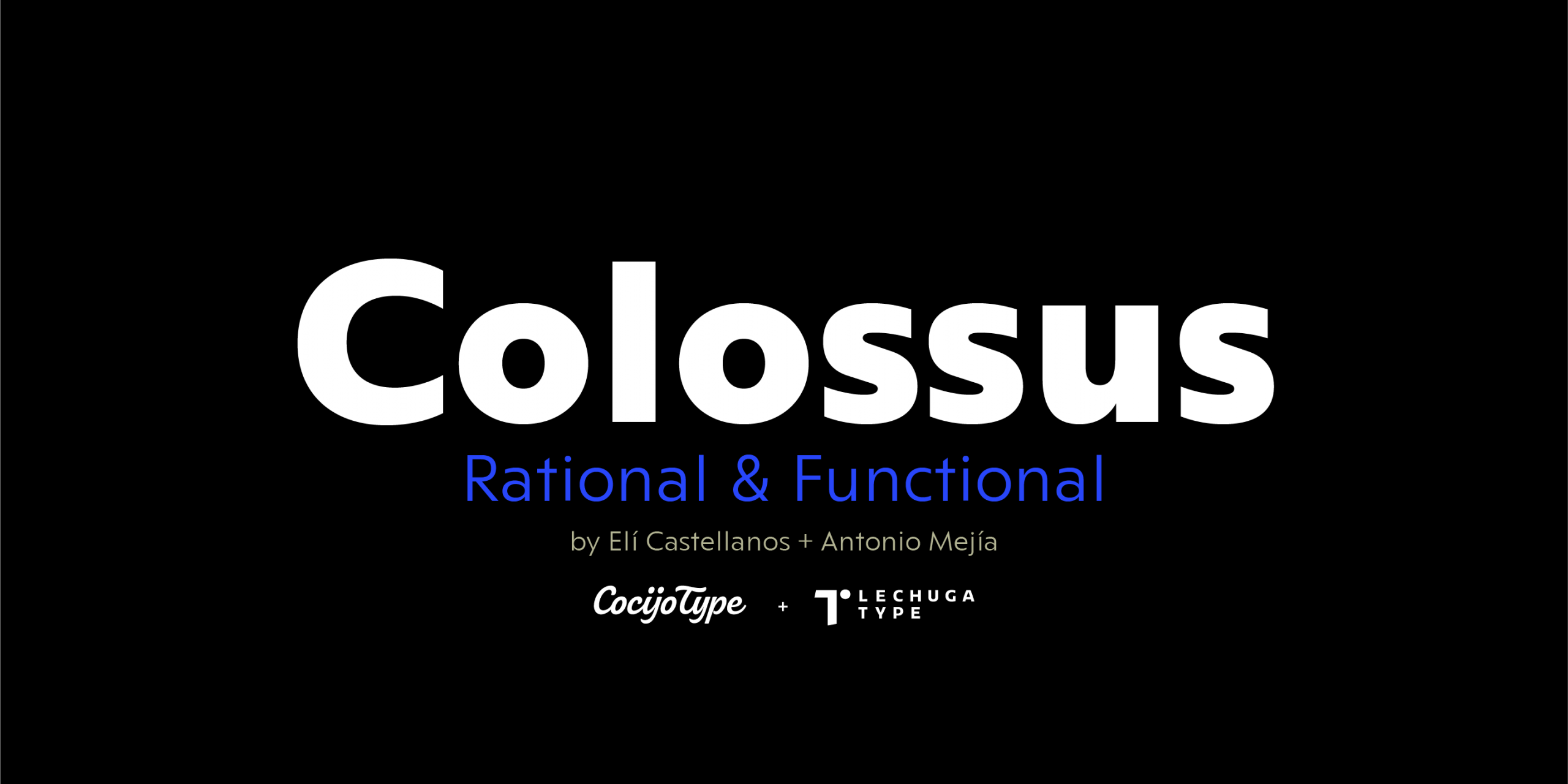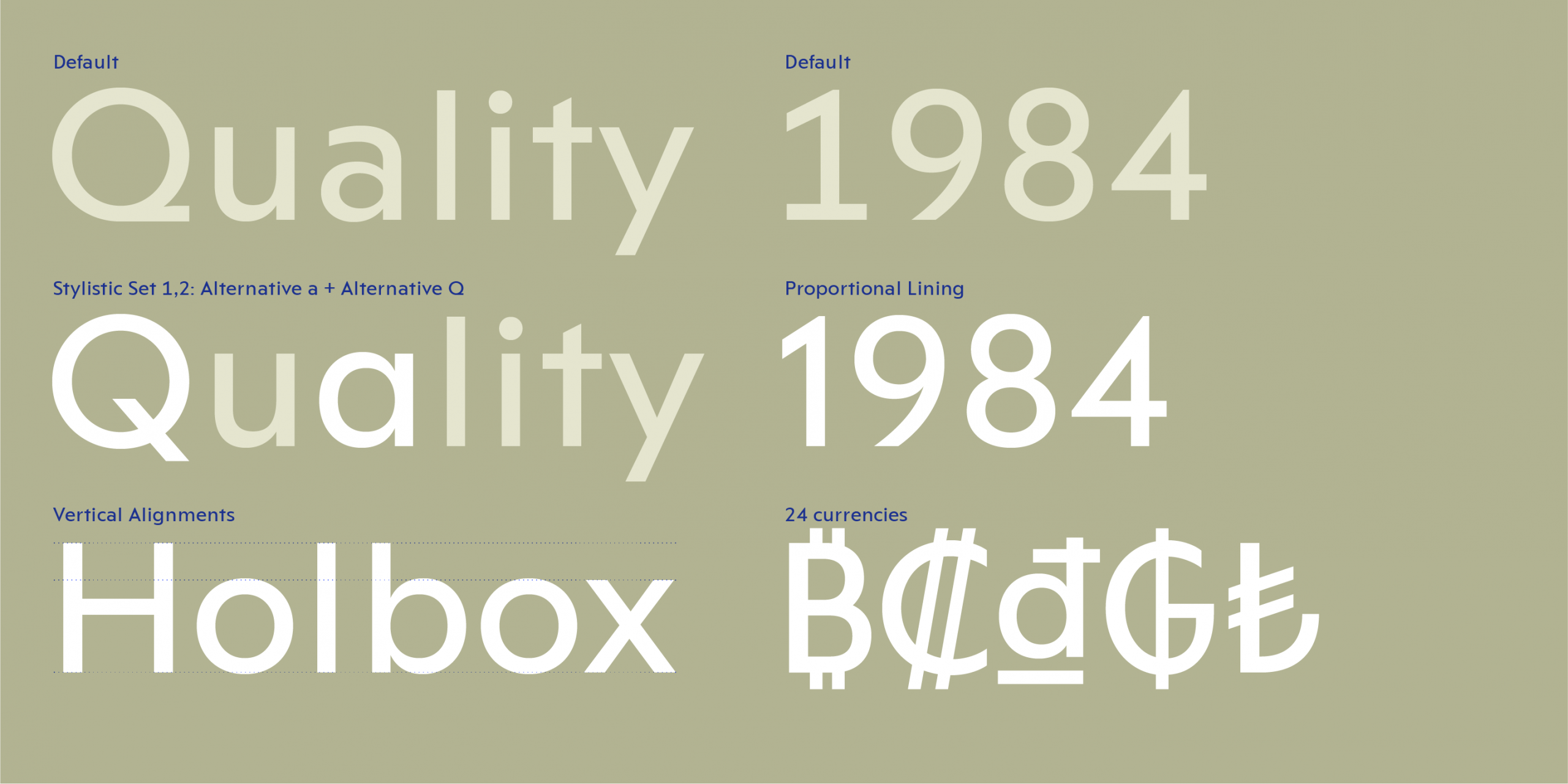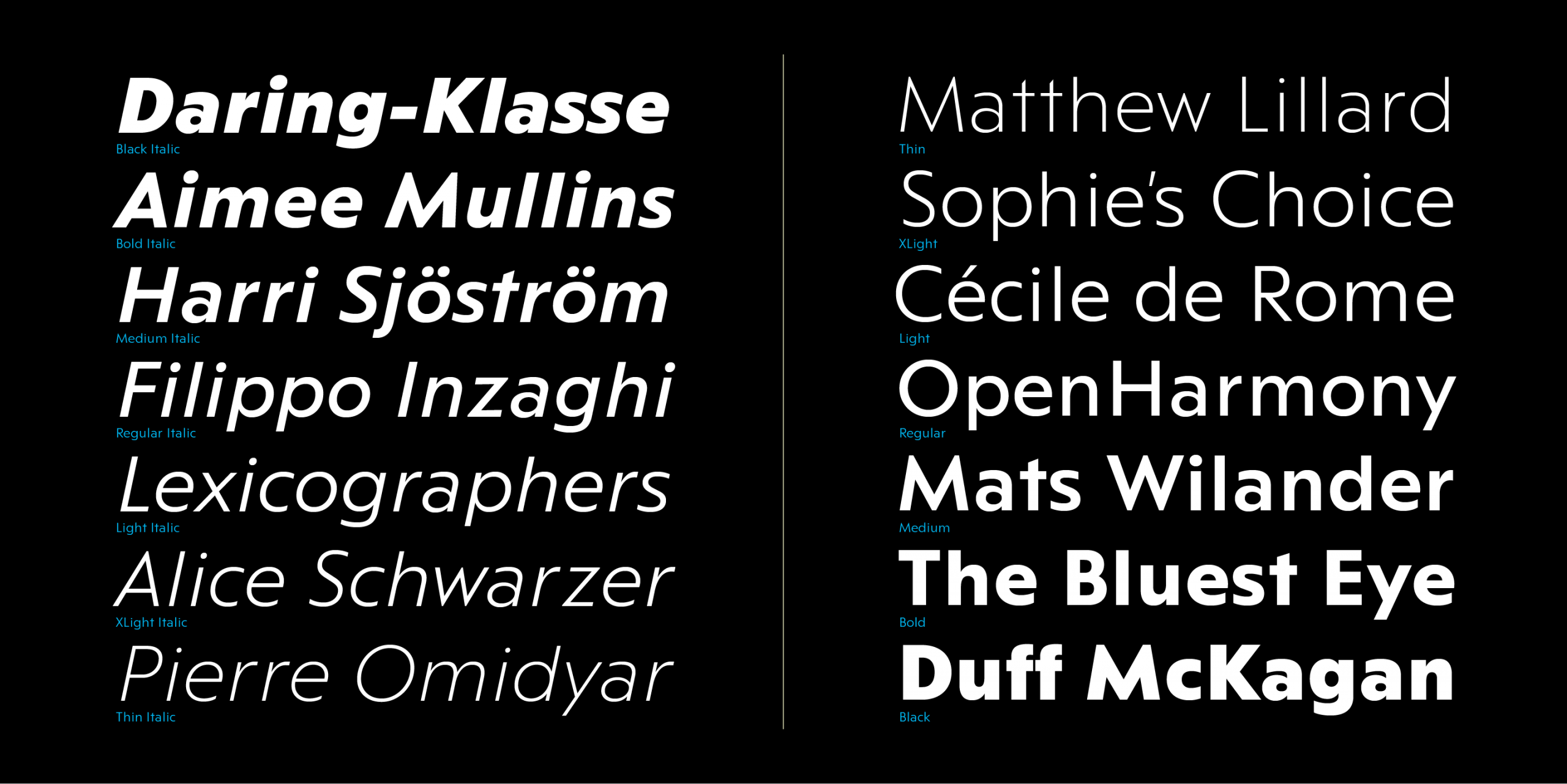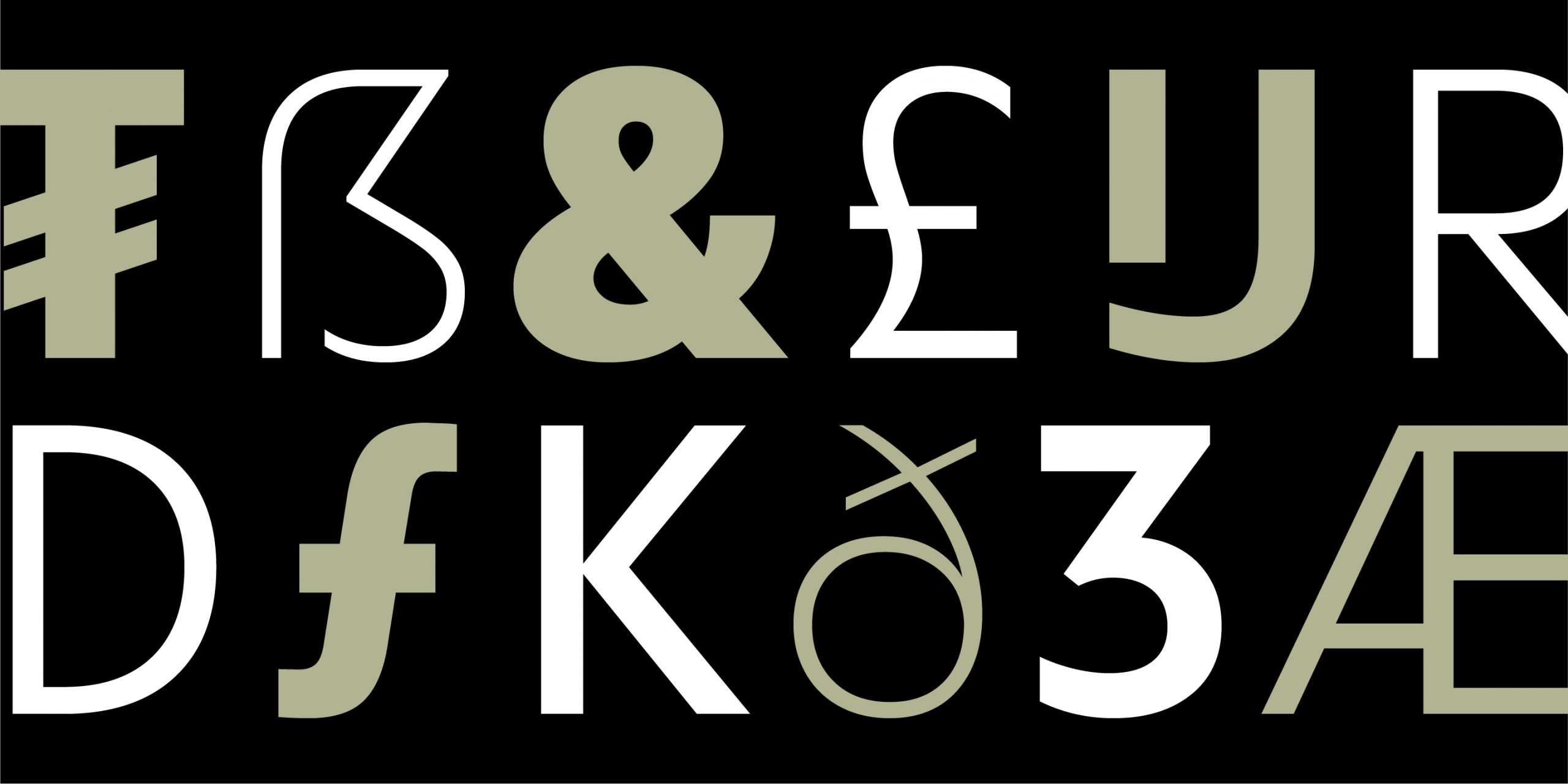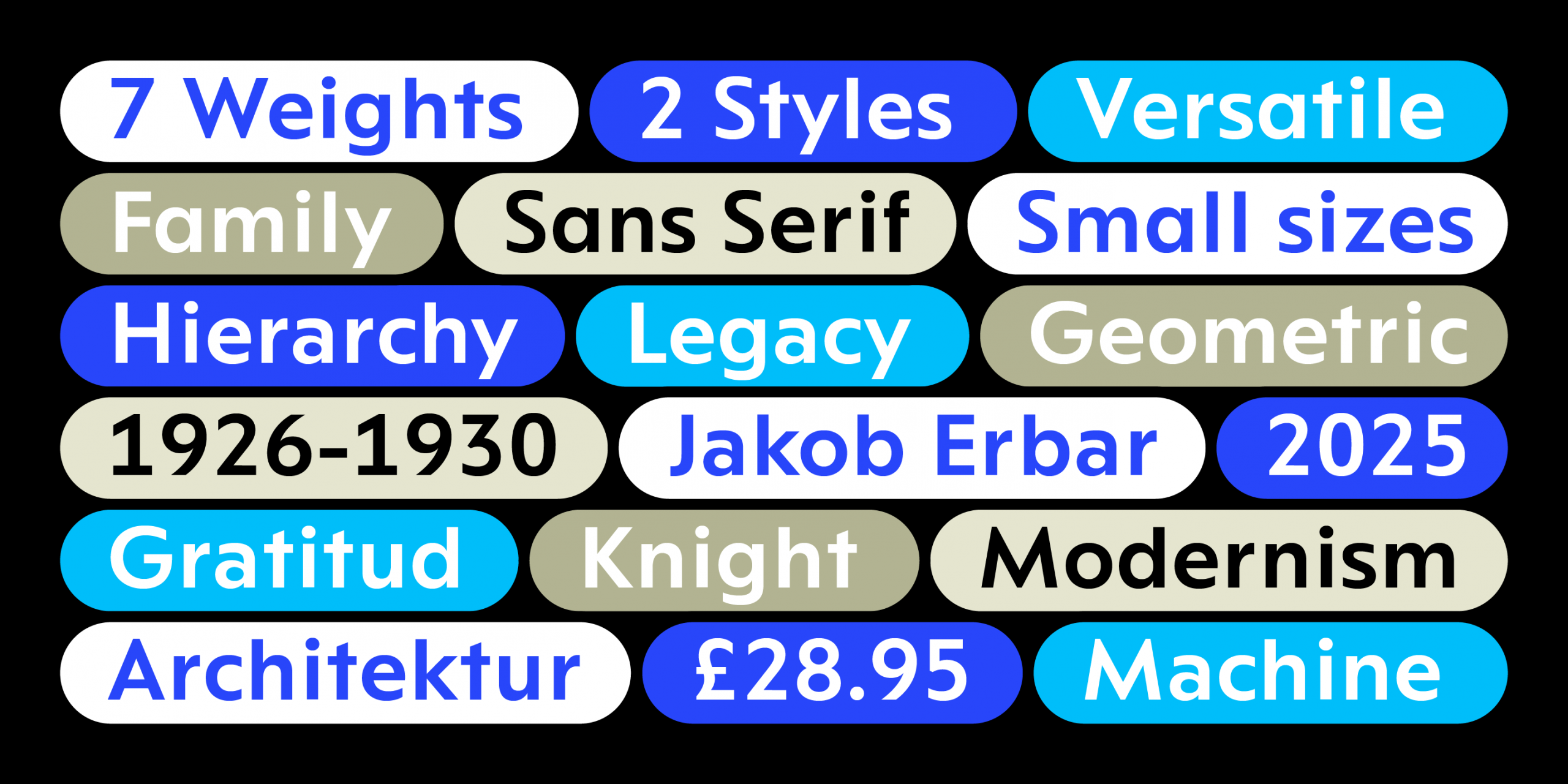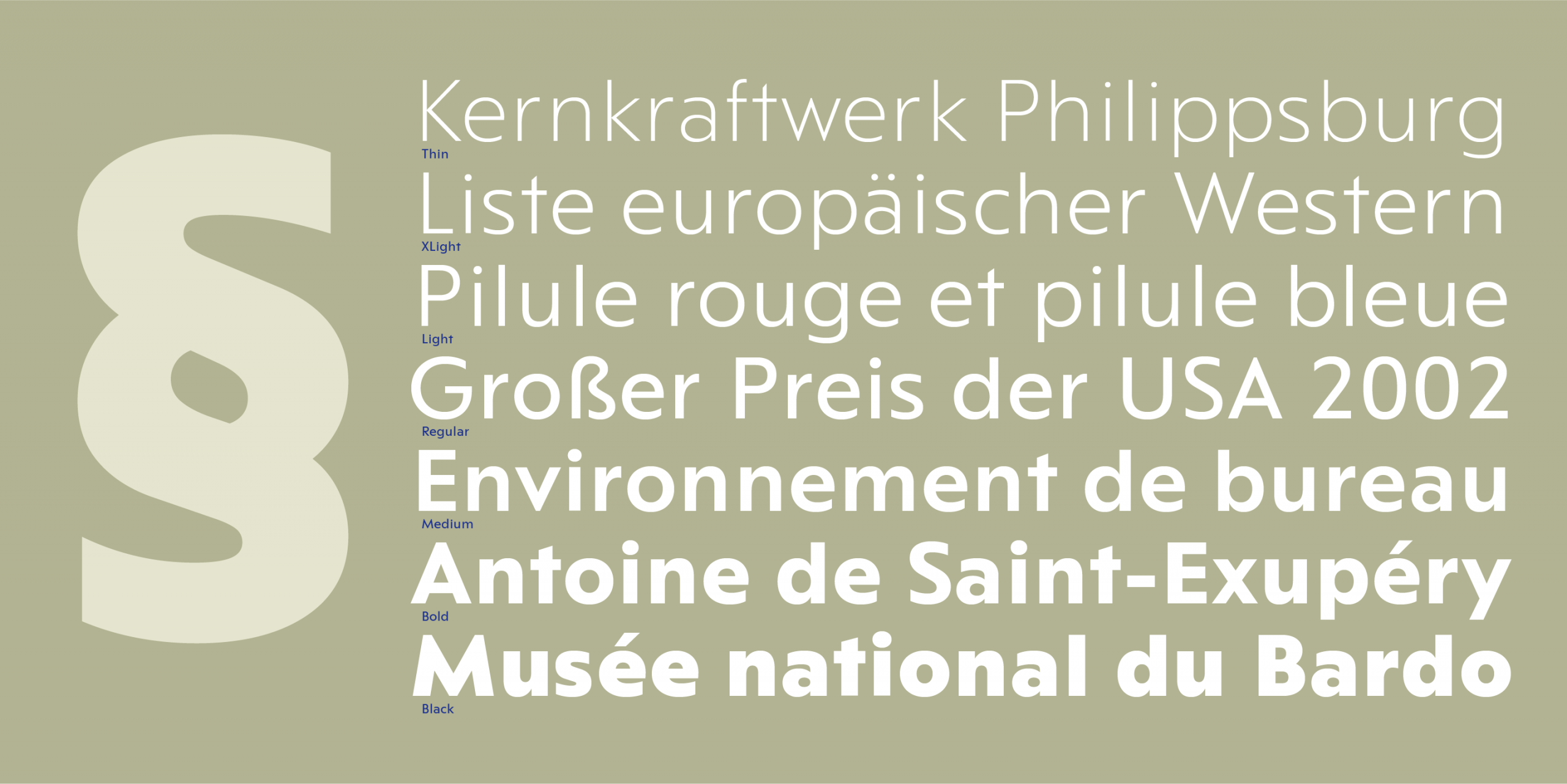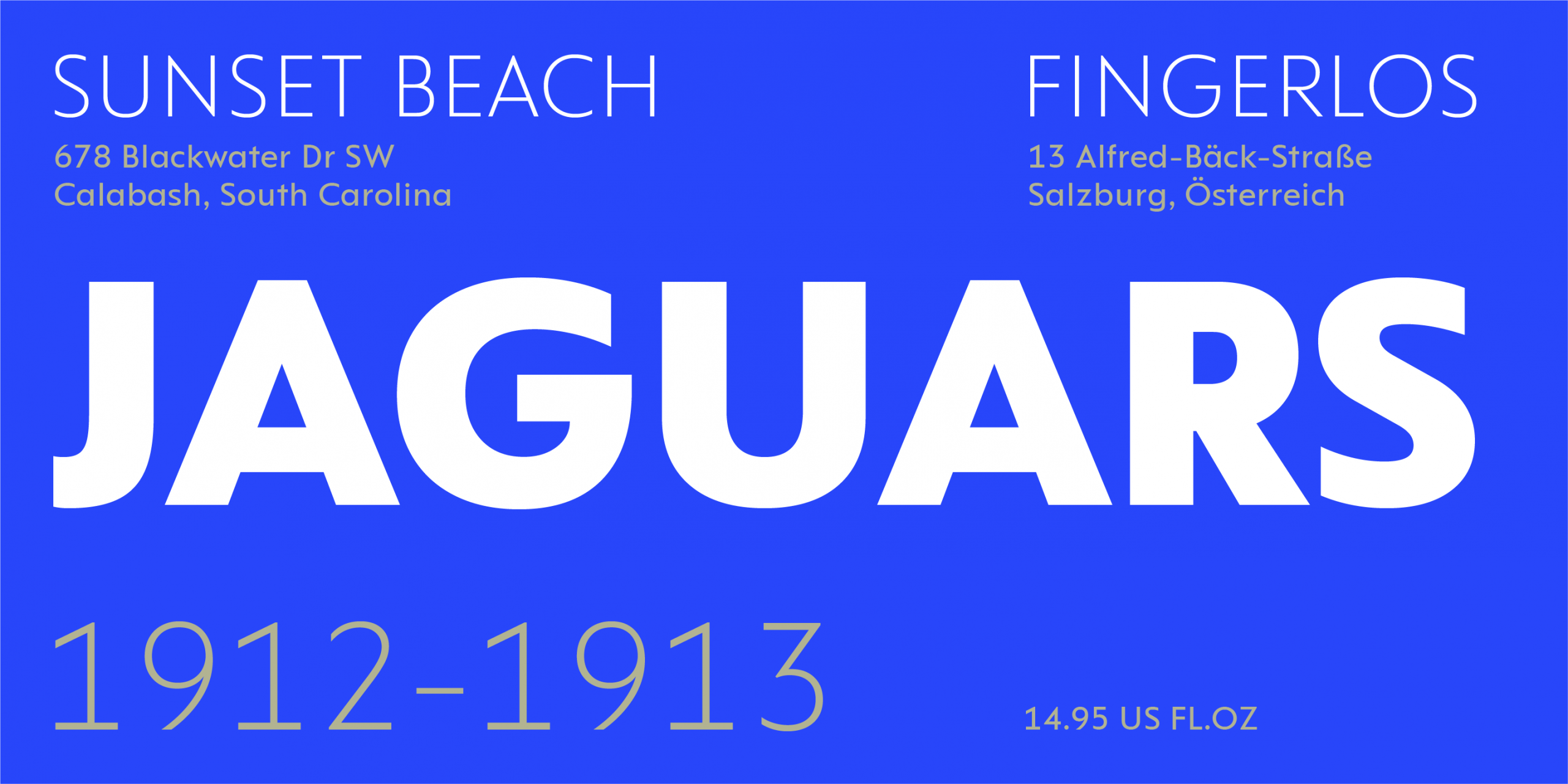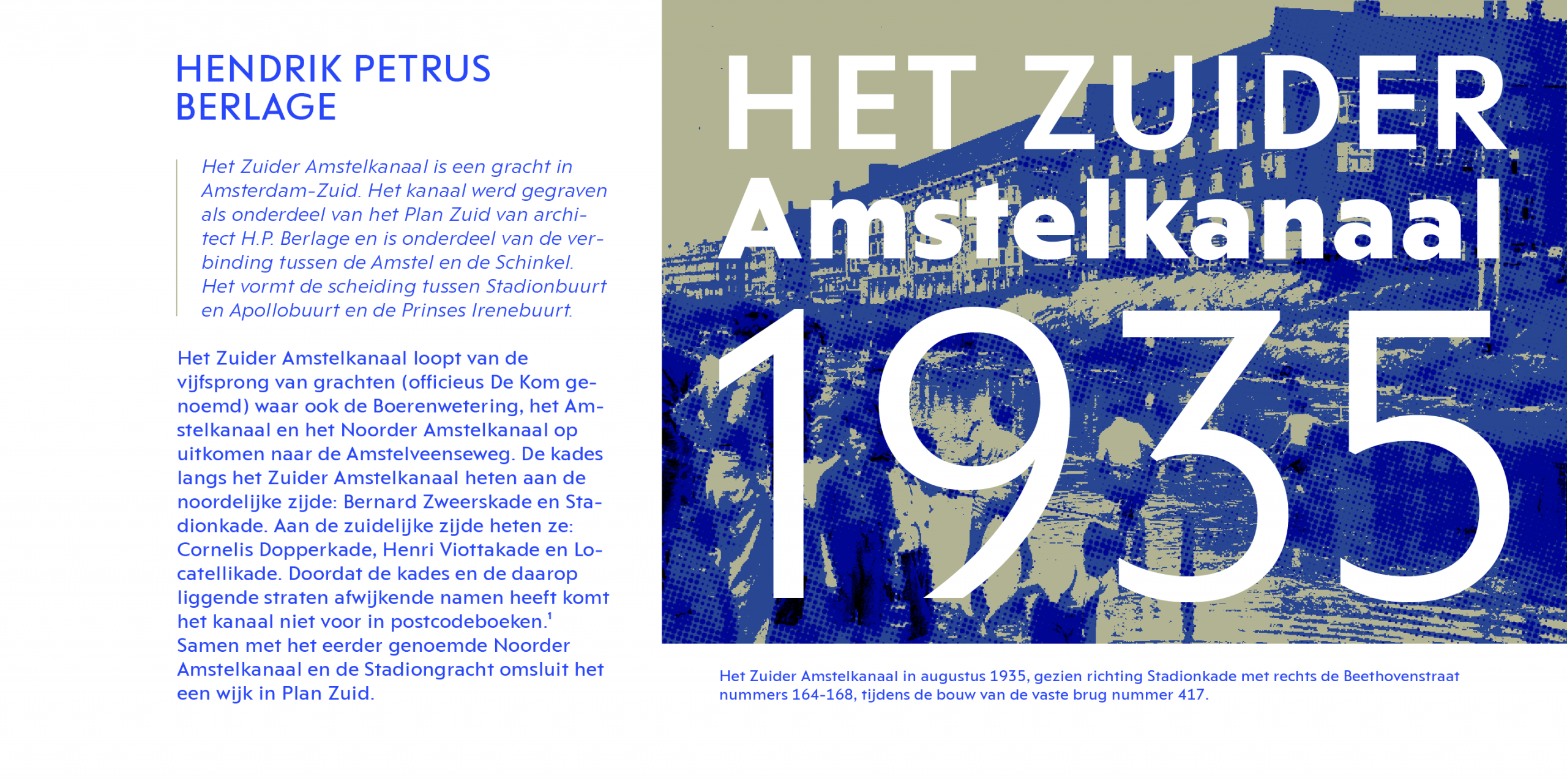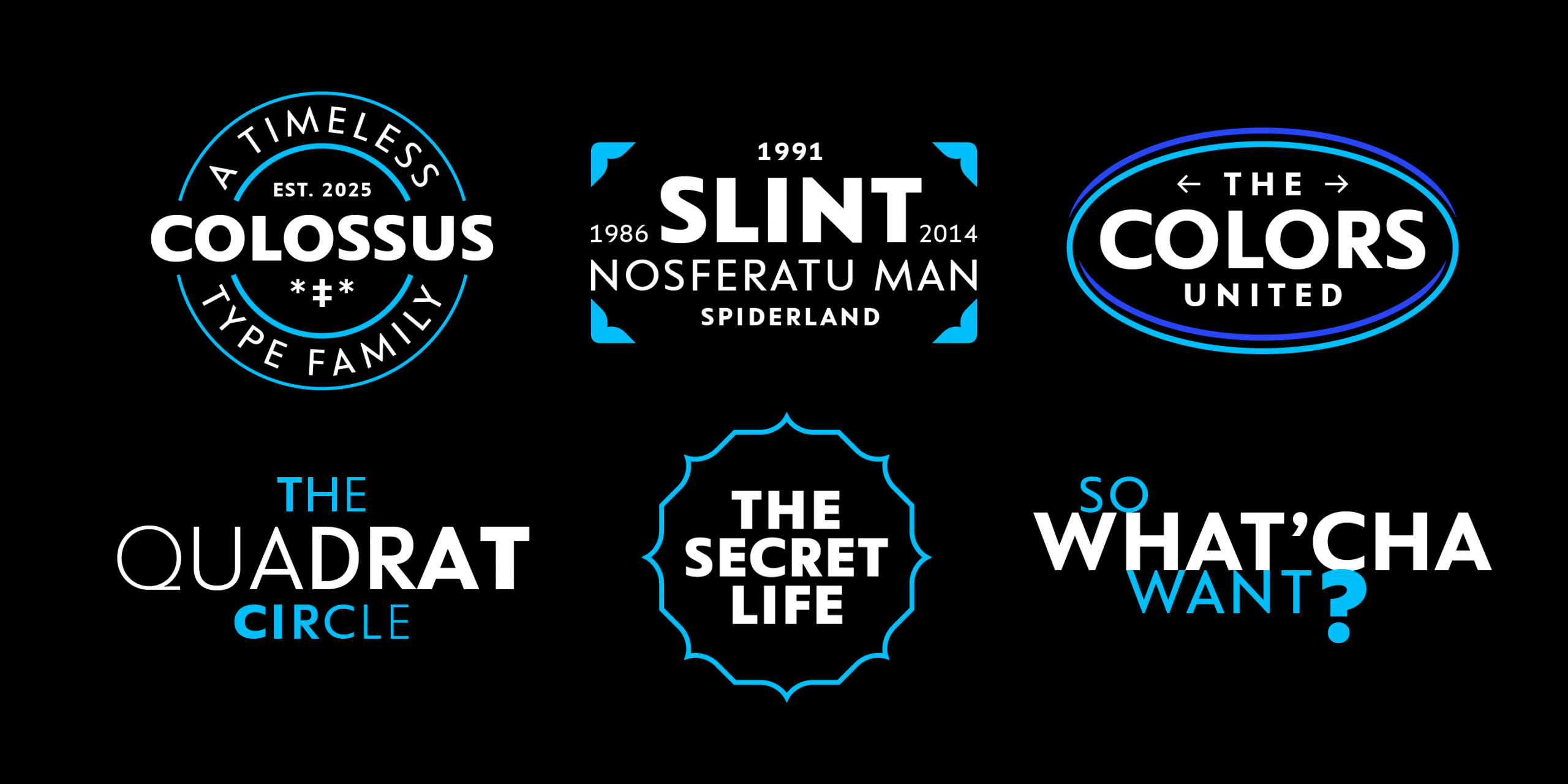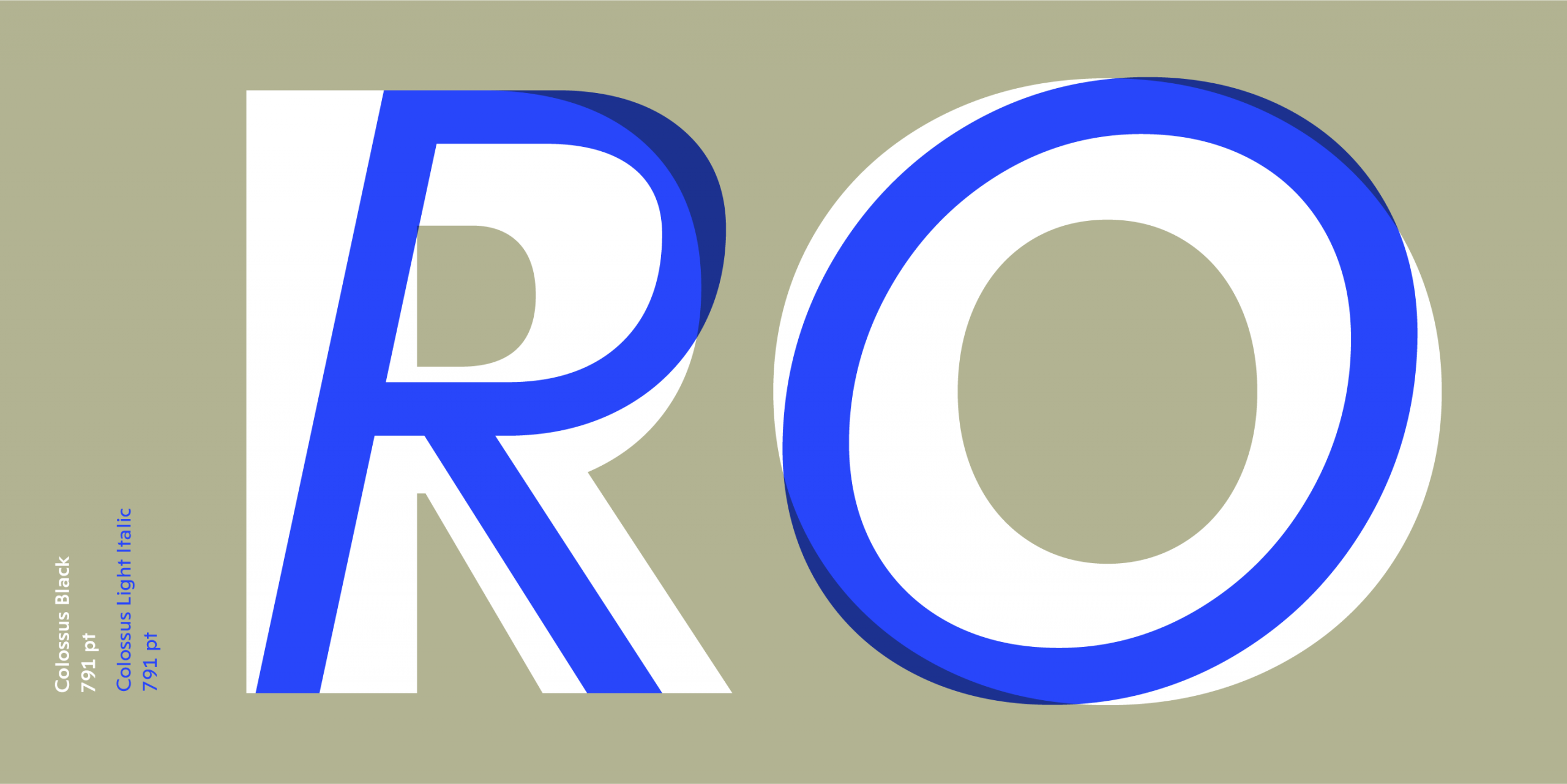
Colossus
A versatile geometric sans serif for branding, logos, and editorial design.
Colossus is a versatile geometric sans serif typeface designed to adapt to a wide range of design needs. With seven weights and matching italics, its clean geometric aesthetic provides flexibility across different typographic applications.
A Versatile Geometric Sans Serif
Colossus combines a clean, geometric aesthetic with a versatile typographic system.
Its range of weights makes it adaptable to different design needs, from strong headlines and logos to supporting text and broader typographic compositions.
Designed by: Antonio Lechuga & Elí Castellanos
A Geometric Sans Serif Built for Versatility
Seven Weights + Matching Italics
Colossus — seven weights, matching italics, and a clean geometric aesthetic for logos, branding, corporate projects, headlines, and body text. Colossus offers seven weights, along with matching italics. The wide range of weights provides flexibility to achieve the right visual texture and typographic hierarchy for different parts of a design.
Use the lighter and heavier weights to create contrast, hierarchy, and different levels of emphasis across your compositions.
Designed for Logos, Branding & Corporate Projects
Colossus is particularly well suited to corporate projects and logo design due to its clean and geometric aesthetic.
Its range of weights also makes it adaptable for headlines, body text, and other branding applications where consistency and typographic flexibility are essential.
A Collaborative Retail Typeface
Colossus marks the first of our collaborative retail projects.
| Family Name | Colossus |
| Designed By | Antonio Mejía Lechuga |
| Category | Versatile geometric sans serif |